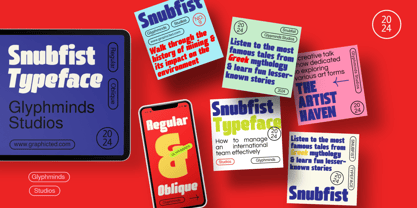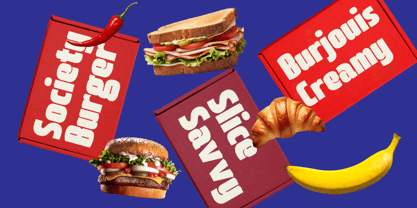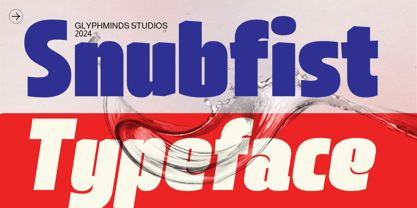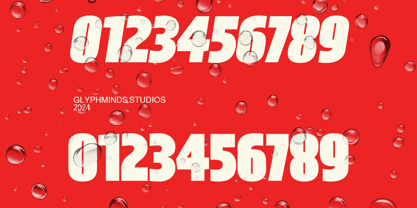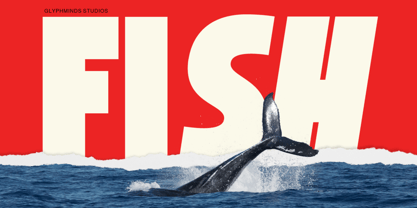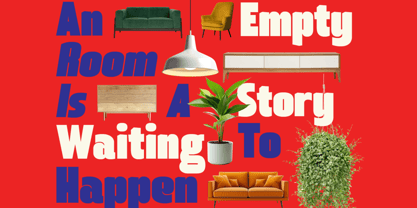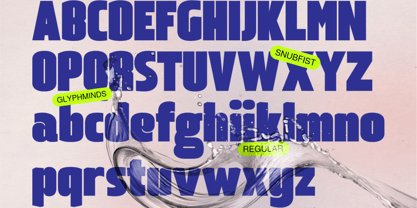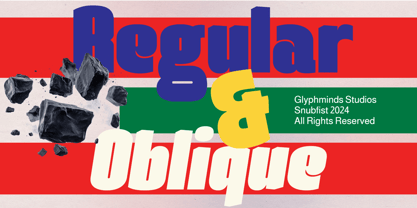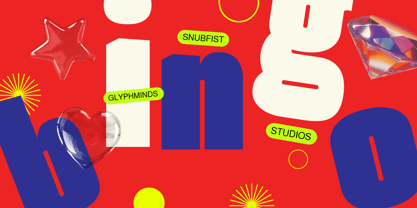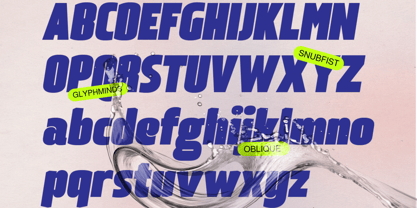
Snubfist
par Glyphminds Studios
La famille de polices Snubfist a été conçue par Baliya Ibnu Bi Malkan et publiée par Glyphminds Studios. Snubfist contient 2 styles et options de package familial.
Introducing Snubfist, a dynamic and bold display typeface that commands attention. Perfectly suited for modern branding, poster designs, and eye-catching headlines, Snubfist combines strong geometric forms with a unique personality. Its clean yet powerful style ensures your message stands out in any medium. Whether you're crafting digital ads, editorial layouts, or creative packaging, Snubfist is the typeface that makes your design unforgettable. Get ready to elevate your work with this cutting-edge font from Glyphminds Studios!